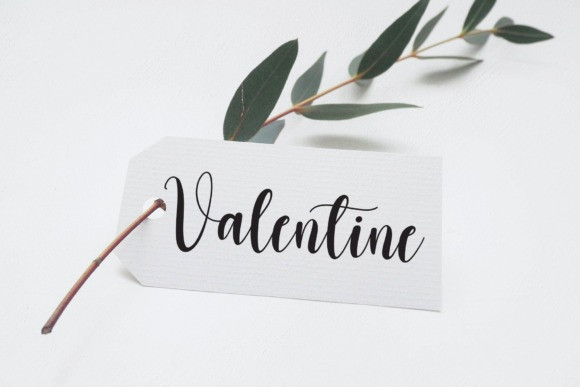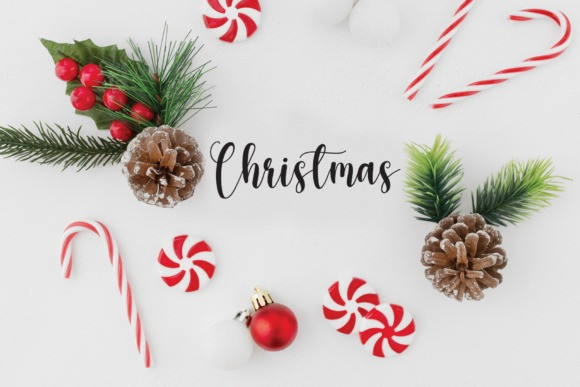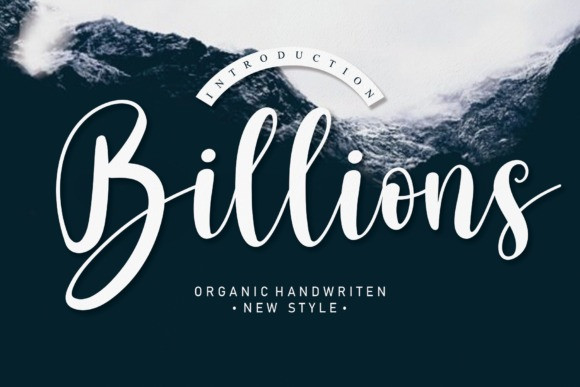
Billions Font
Billions Font is a sweet and cursive handwritten font. This gentle font will look gorgeous on a variety of design ideas. It will add a joyful and romantic touch to each of your projects!